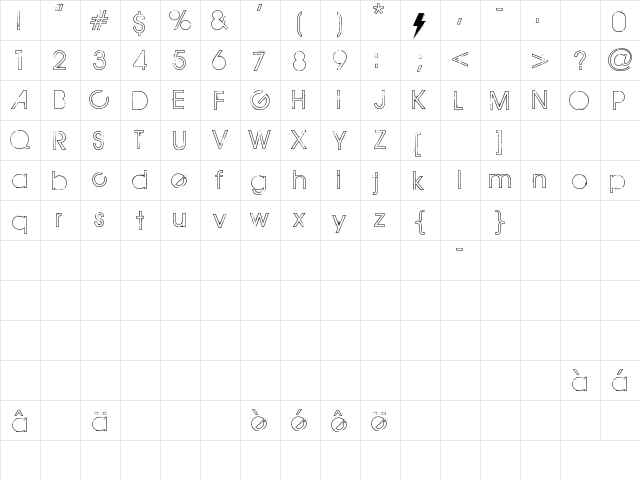
THE MAPLE ORIGINS Regular
Design Context for THE MAPLE ORIGINS Typeface
THE MAPLE ORIGINS offers clean, dependable letterforms without strong stylistic allegiance, making it a practical choice for designers who need flexibility.